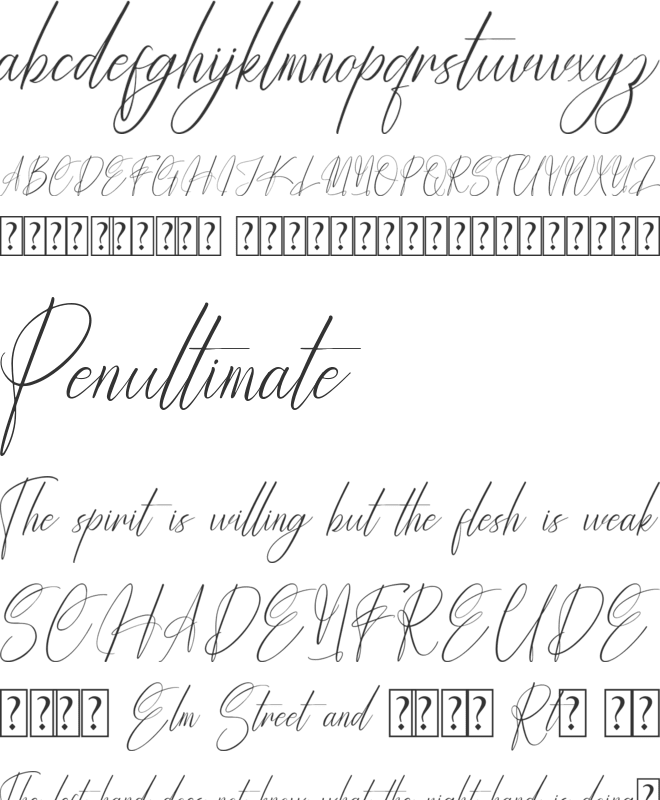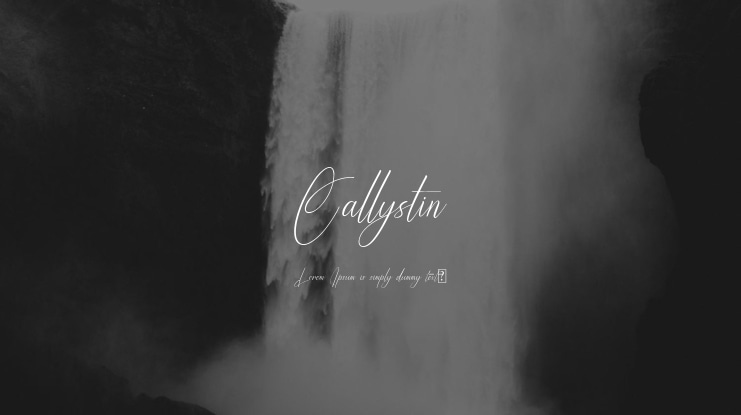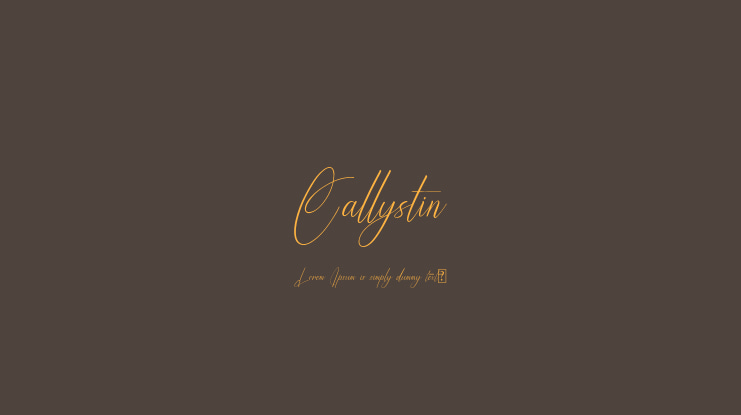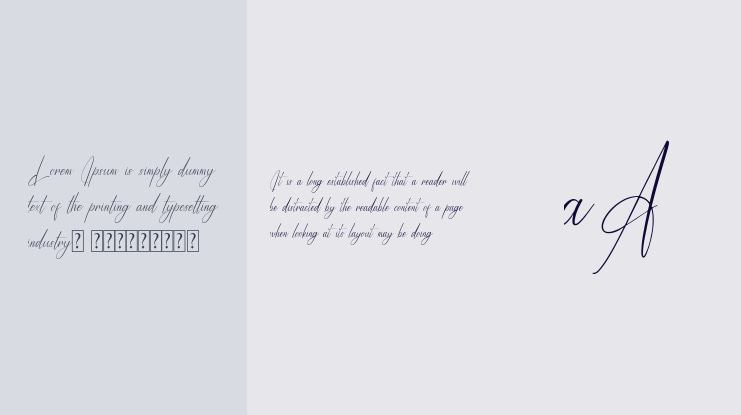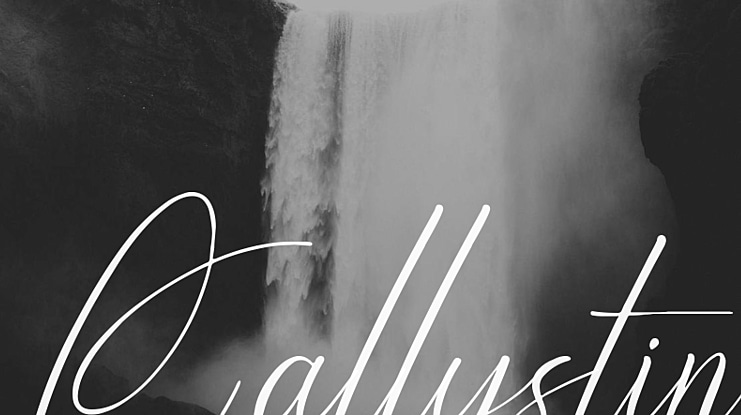
Callystin - A Modern Signature Script Font, from Goresan Studio, suitable for any projects such as: logos, branding projects, homeware designs, product packaging, mugs, quotes, posters, shopping bags, t-shirts, book covers, name card, invitation cards, greeting cards, label, photography, watermark, special events, and all your other lovely projects that need a beautiful script taste.